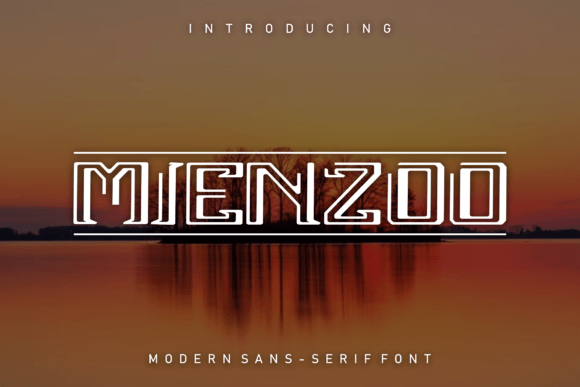
Introducing Mienzoo Font: A Masterpiece for Design Enthusiasts
In the vast world of typography, Mienzoo font stands tall as a beacon of creativity and style. This stunning display font is crafted with meticulous attention to detail, exuding an aura of sophistication and charm. Whether you're a seasoned designer or just starting to explore the world of fonts, Mienzoo is sure to ignite your imagination and take your projects to new horizons.
With its captivating curves and striking glyphs, Mienzoo instantly commands attention. Its carefully kerned characters exude an almost hypnotic elegance, inviting your audience into a world of pure aesthetic pleasure. Each letterform is meticulously rendered, showcasing a perfect blend of boldness and finesse. The result is a font that oozes personality, making it an ideal choice for headlines, logos, and any design project where impact is key.
Mienzoo's versatility knows no bounds. It seamlessly blends the timeless appeal of classic typography with the boldness of contemporary design, making it suitable for a wide range of applications. Let your imagination run wild as you explore endless possibilities with this exceptional display font. From eye-catching advertisements to elegant wedding invitations, Mienzoo has the power to transform your words into works of art.
But beyond its aesthetic allure, Mienzoo is also a font that inspires and empowers. Its unique character sets the stage for your words, allowing them to make a lasting impression on your audience. With Mienzoo on your side, you can craft messages that resonate, persuade, and leave a lasting impact.
So, if you seek a font that can ignite your creativity, look no further than Mienzoo. This exceptional display font is designed to elevate your designs to new levels of beauty and impact. Embrace the power of Mienzoo and watch as your words come alive with newfound vitality and charm.